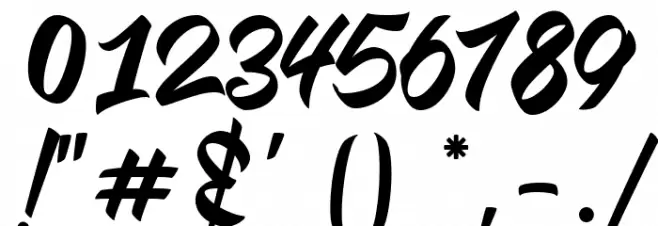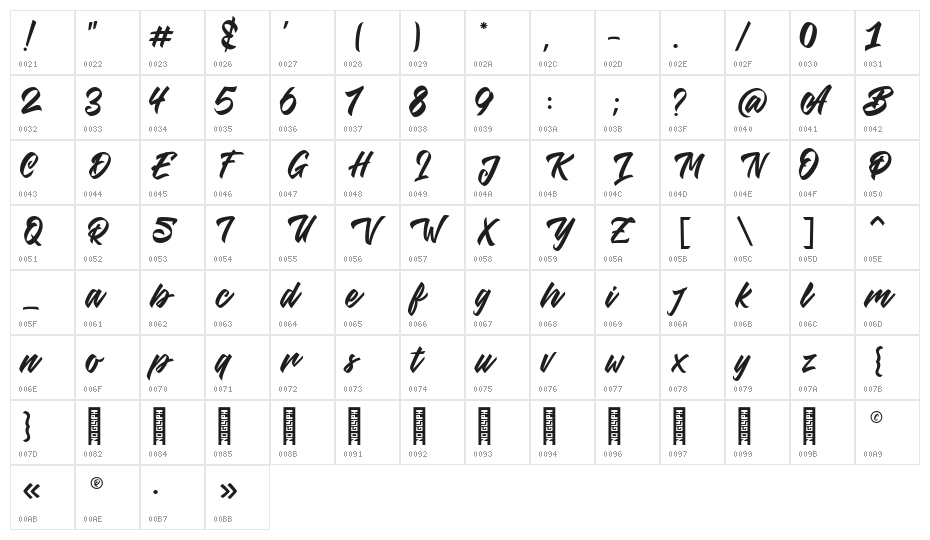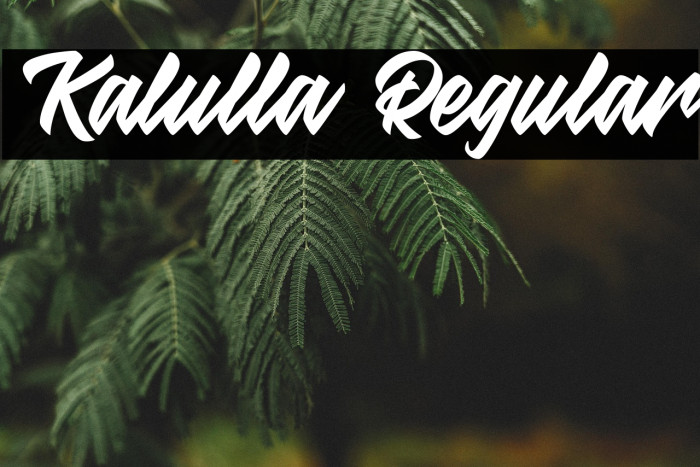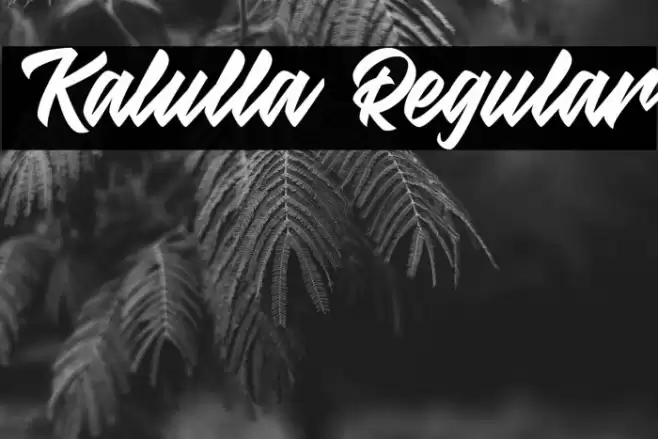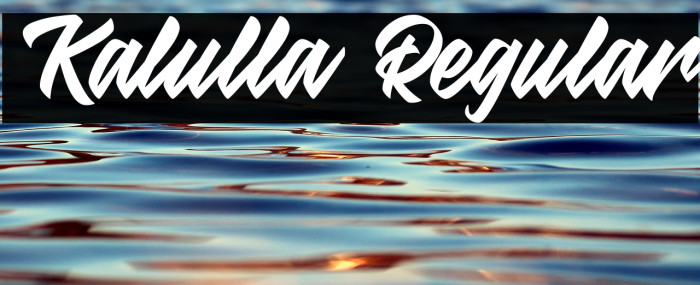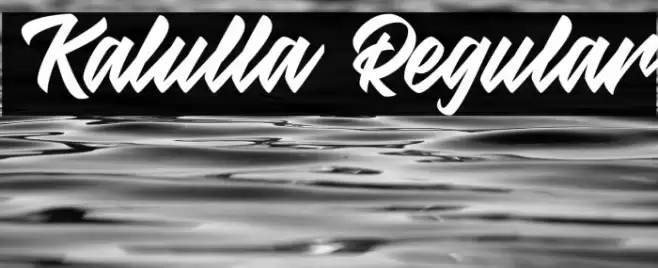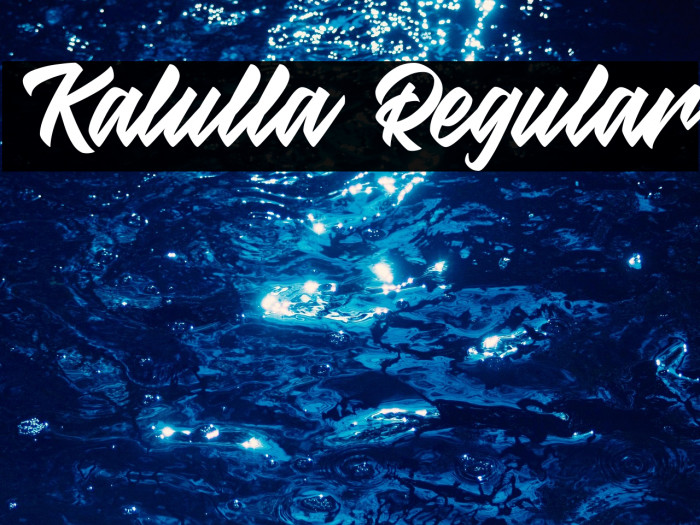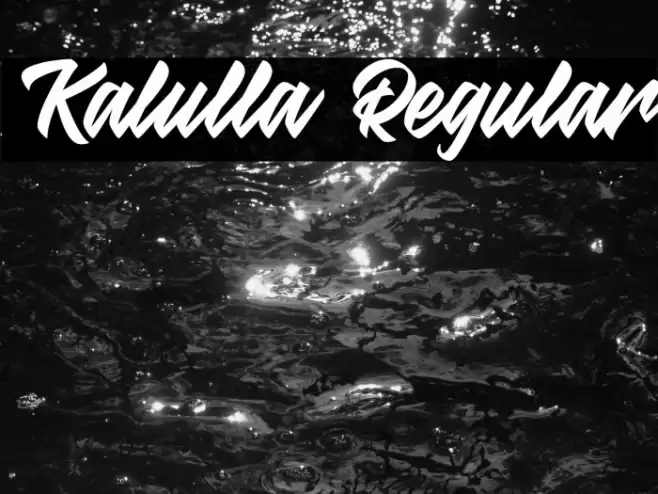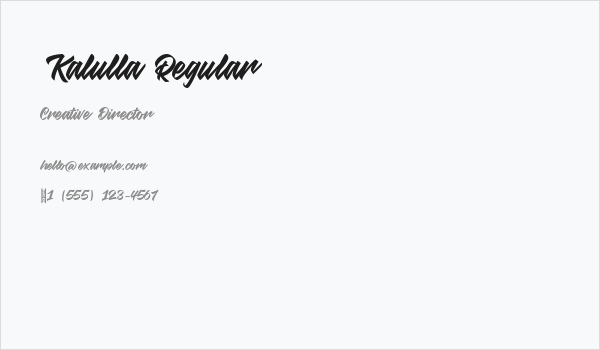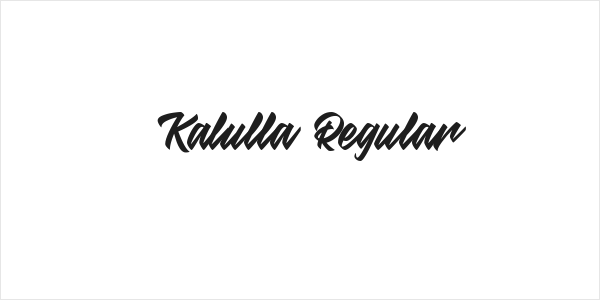
Kalulla Regular Font
Kalulla Regular Description
This font features a bold and expressive script style, characterized by its fluid and dynamic strokes. The letters are interconnected, creating a sense of movement and elegance. The uppercase letters are particularly striking, with sweeping curves and a sense of flair. The lowercase letters maintain a consistent flow, enhancing readability while retaining a stylish appearance. Numbers and special characters are crafted with the same attention to detail, ensuring a cohesive look across all text. This font is ideal for projects that require a personal touch or a sense of sophistication.